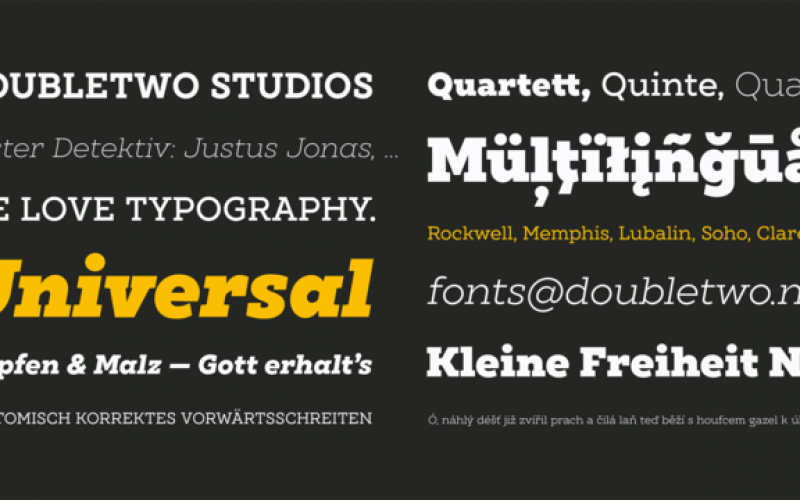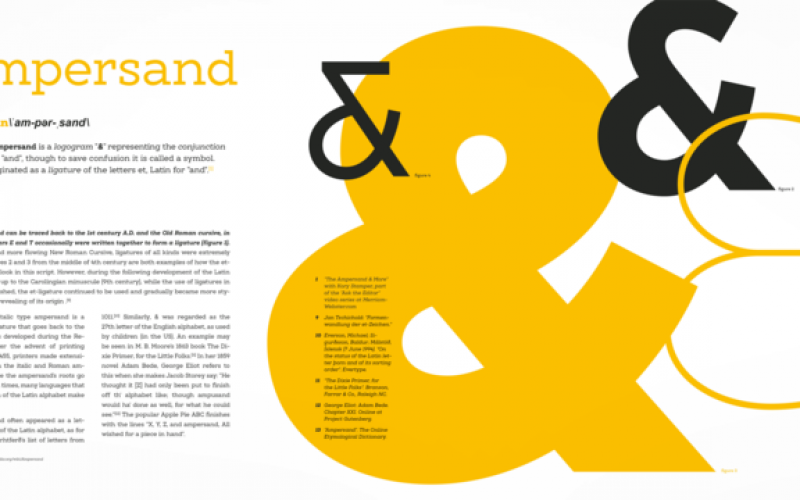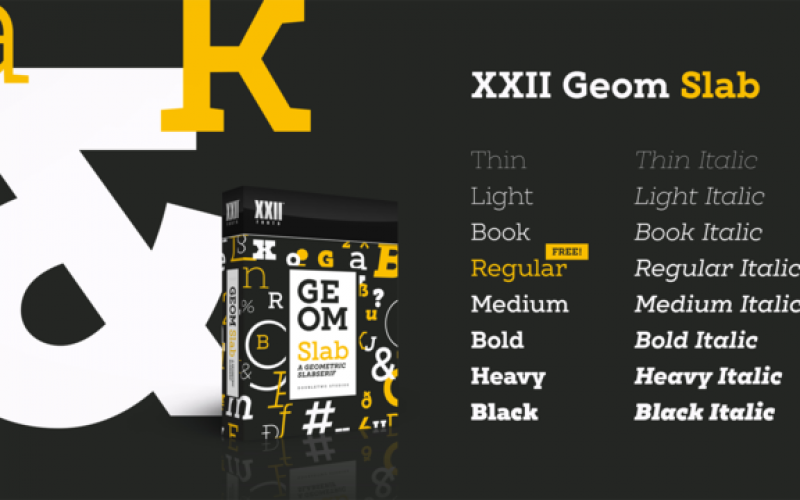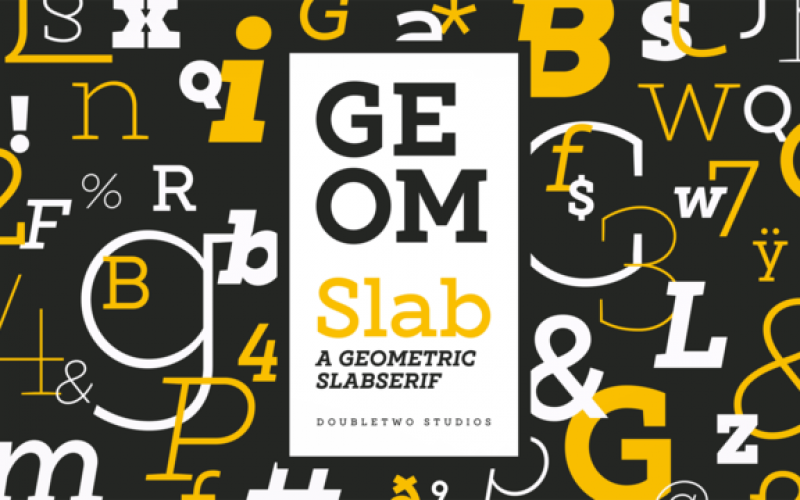
XXII Geom Slab Font Family
XXII GeomSlab are the additional slab-serif styles to the geometric sans-serif XXII Geom.
XXII Geom and XXII Geom Slab are modern geometric type systems designed with focus on functionality & legibility and with an eye on the old masters.